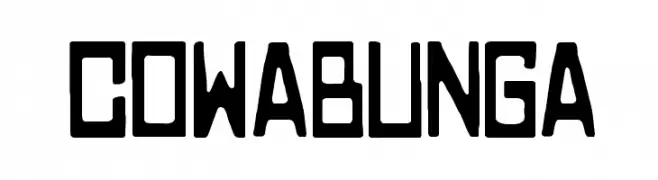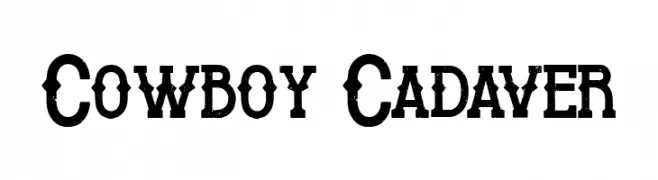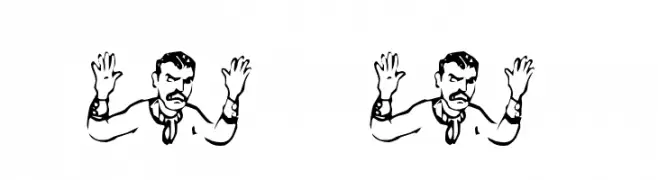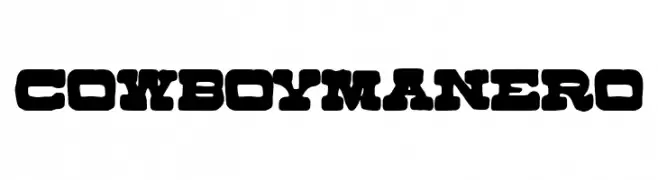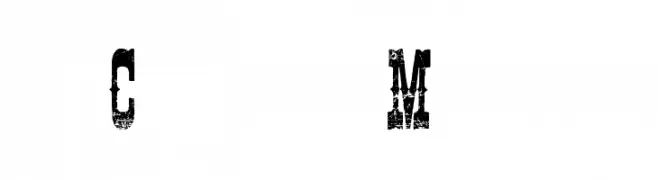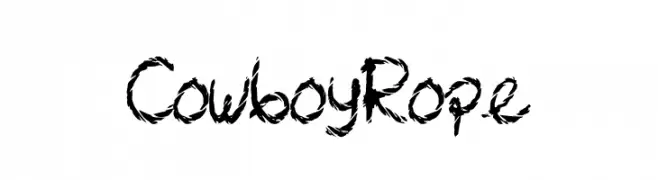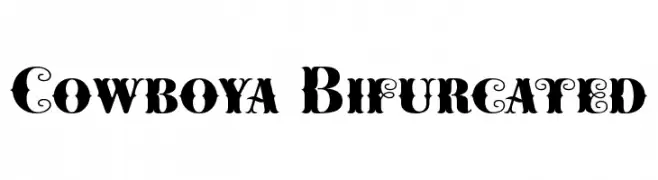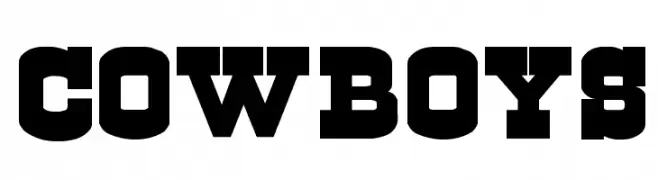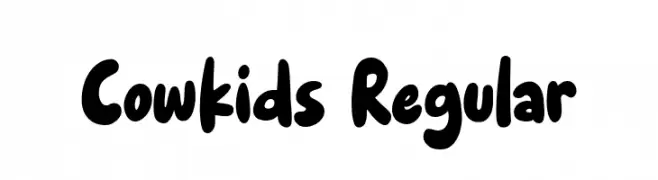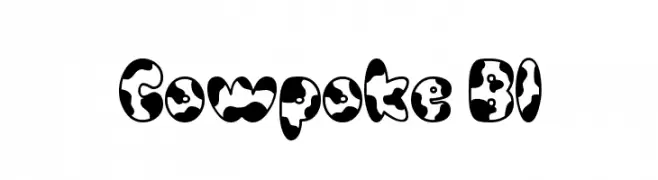
A playful, cow-themed decorative font with bold, whimsical characters.
A playful, farm-themed decorative font with cow motifs and italic styling.
A bold, playful font with a hand-drawn, dynamic style.
Artistic cow illustrations replace traditional characters, offering a whimsical design element.
A rugged, distressed slab serif font with a vintage, Wild West feel.
A collection of cowboy-themed clip art illustrations, not a traditional font.
A bold, decorative font with a western theme and vintage distressing.
A bold, rugged font with a vintage Western style.
A bold, distressed font with a vintage Western style.
A rugged, rope-like font with a Western, handcrafted style.
A decorative bifurcated font with a bold, Western-inspired style.
A bold, gothic-style Blackletter font with intricate, angular designs.
A bold, slab serif font with a vintage Western style.
A bold, Western-style font with thick strokes and pronounced serifs.
A bold, decorative font with a Western, wood-grain aesthetic.
A bold, Western-style font with strong, blocky letterforms and subtle serifs.
A playful, bold font with rounded, thick strokes and a whimsical touch.
A bold, decorative font with cow-hide pattern designs, perfect for playful and creative projects.
A modern, geometric sans-serif font with tall, narrow letters and consistent stroke widths.
A modern, sleek font with tall, narrow uppercase letters and a geometric style.
A bold, modern font with rounded edges and a geometric structure.
A geometric and stylized font with Art Deco influences, perfect for modern design projects.
A bold, decorative font with a geometric and futuristic style.
A bold, italic Art Deco-inspired font with geometric flair.
A geometric, art deco-inspired font with condensed, angular letterforms.
A deco-inspired, condensed italic font with geometric and modern elements.
A decorative Art Deco-inspired font with geometric shapes and smooth curves.
A dynamic, italicized font with geometric shapes and medium contrast.
A modern, italicized Art Deco-inspired font with geometric and angular characters.
A bold, geometric sans-serif font with a modern and assertive style.
A bold, geometric font with a modern and impactful design.
A playful, hand-drawn style font with rounded, bold characters.